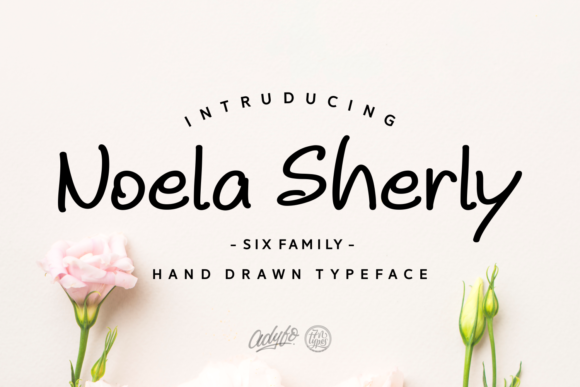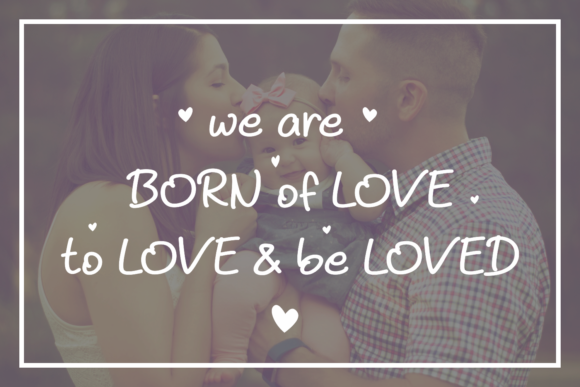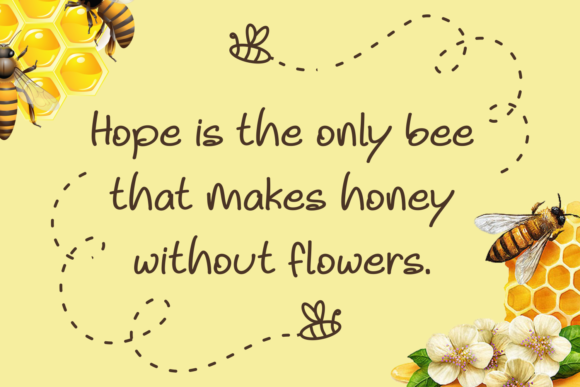
Noela Sherly Font
About Noela Sherly Font
The Noela Sherly is a cute hand drawn font.
It is smooth and rounded, like it was created with a bold marker. The font comes in 6 unique styles.
With it’s playful look & feel it is perfect for designs that need a personal touch. At the same time, the font is very legible and has a modern elegant look.